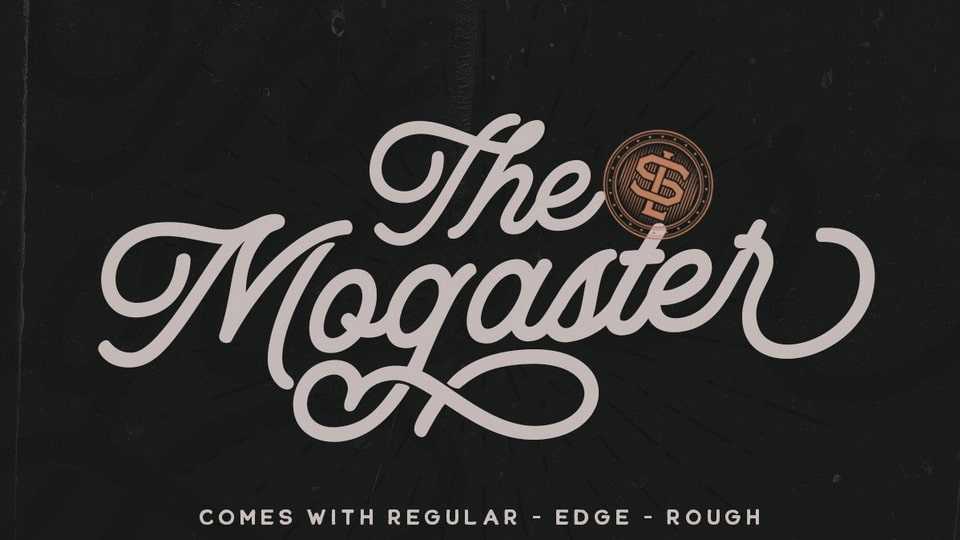
Download The Mogaster font, an elegant monoline script with a touch of vintage look and feel. The Mogaster looks beautiful on a variety of designs requiring a personalized style, such as labels, wedding invitations, greeting cards, logos and so on.